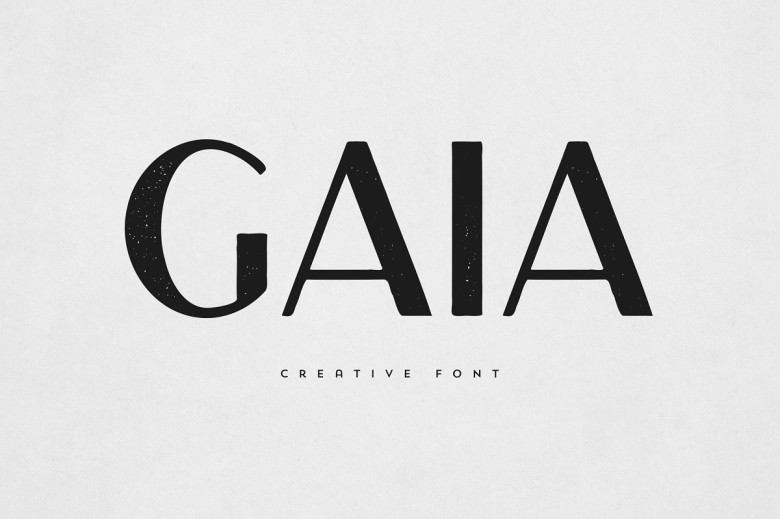
Gaia Sans is a versatile sans-serif font with an eye-catching appearance! Perfect for logo, branding and text applications; Gaia Sans is ideal for branding projects, packaging designs, magazine headers or home-ware designs.
Gaia Sans Serif Font